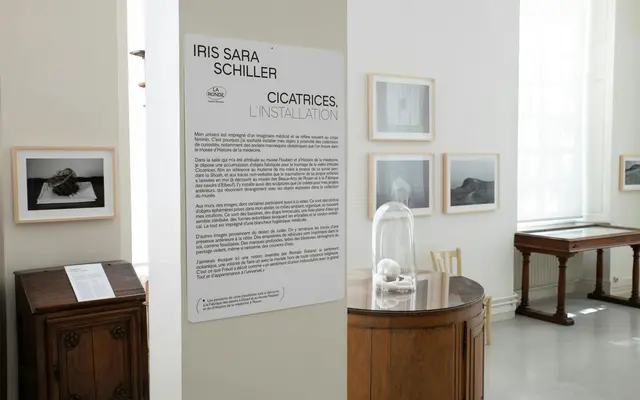
Adapt
Writtenshape · Raphaël de La Morinerie
A Swiss-modernist neo-grotesque with calm proportions and subtle nods to 19th-century American sans-serifs, suited to long-form text and signage alike.
Designed by Raphaël de La Morinerie, Adapt draws on Swiss modernist tradition while introducing tubular angled terminals on glyphs such as J, f and t that recall early American sans-serifs. Ample capital proportions and increased contrast in the bolder weights give the family a measured vintage character without undermining its legibility at text sizes. Seven weights from Thin to Black cover everyday editorial and wayfinding work, and a PDF specimen details the layout-oriented OpenType features.
Described explicitly as a neo-grotesque inspired by Swiss modernist typography, with tubular angles on certain glyphs referencing 19th-century American sans-serif typefaces.